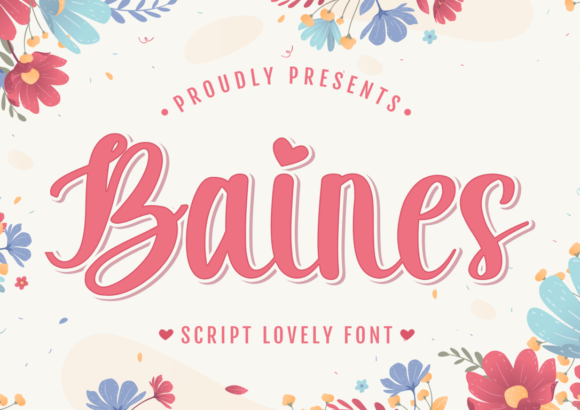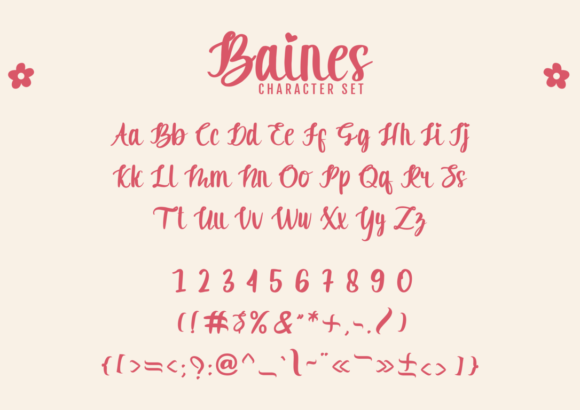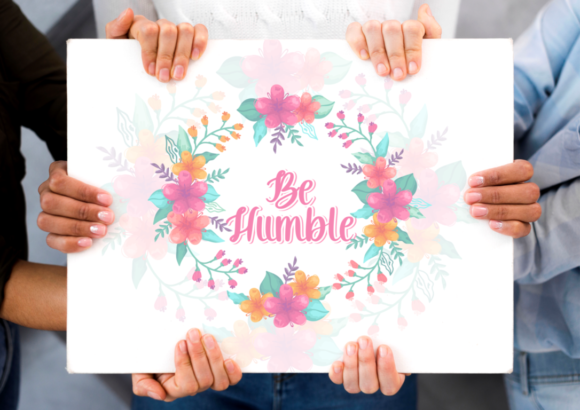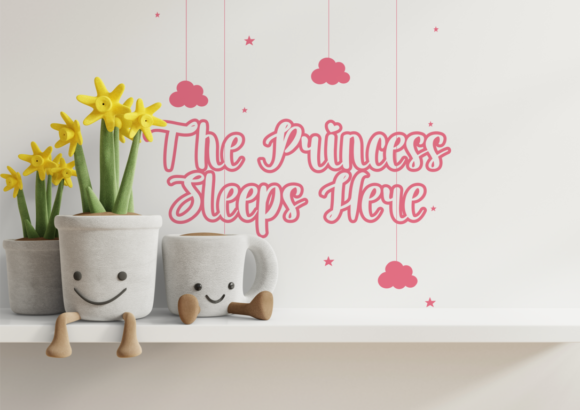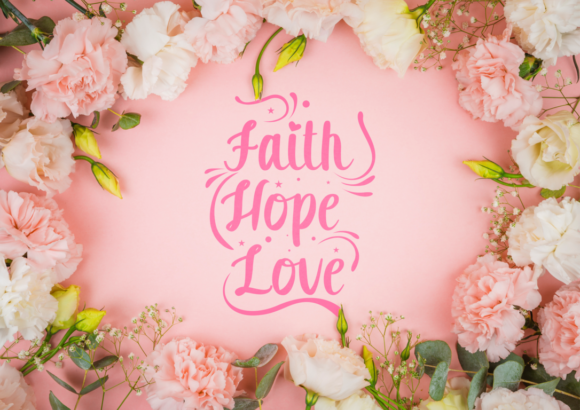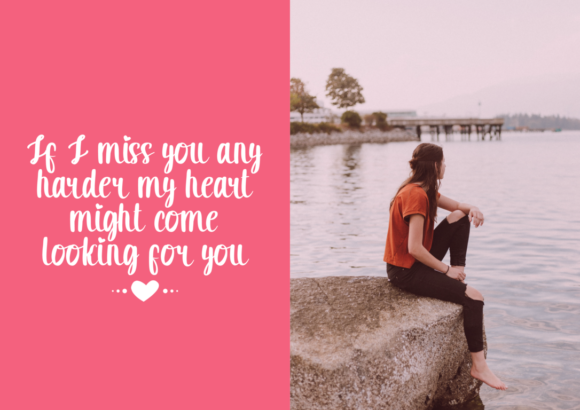
Brighten Up Your Designs with the Playful Charm of Baines Font
Do you remember that moment when you stumbled upon the perfect font to match your creative vision? The one that makes your design come alive and takes it to the next level? For many designers, that moment is exactly what they’re looking for – and the Baines Font is about to become their new go-to companion.
Baines Font is a delightful script font designed to add a touch of whimsy and charm to any project. Its playful characters seem to dance along the baseline, making it the perfect choice for adding a bit of personality to your designs. Whether you’re working on a branding project, a wedding invitation, or a children’s book, Baines Font is sure to bring a smile to your face and make your design stand out.
As a designer, you’re always on the lookout for that special something that sets your work apart from the rest. The Baines Font is a valuable addition to any design toolkit, offering a unique and eye-catching way to express your creativity and bring your ideas to life.
Baines Font Key Features
- Unique Characteristics: Designed with a modern, elegant aesthetic and a unique set of ligatures and swashes for added flair
Baines Font Review
I’ve had the chance to work with the Baines font, and I’m excited to share my honest thoughts with you. ✨ One thing that immediately caught my attention is the font’s elegant and refined aesthetic. It’s perfect for high-end branding and design projects where sophistication is key.
- ✨ Unique and stylish design that’s sure to make your designs stand out
- ✨ Excellent for use in titles and headings, thanks to its strong vertical emphasis
However, I do have some reservations about the Baines font:
- ⚠️ Limited font sizes and weights, which can be restrictive for some designers
- ⚠️ May not be the best choice for body text, as it can be quite difficult to read at smaller sizes
Overall, I’d say that the Baines font is a great choice for designers who want to add a touch of elegance and sophistication to their projects. While it may have some limitations, its unique design and versatility make it a valuable addition to any font collection.
The Baines font is a great choice for:
- Formal invitations and stationery.
- Wedding invitations and event materials.
For optimal use, pair the Baines font with a simple and elegant design aesthetic.